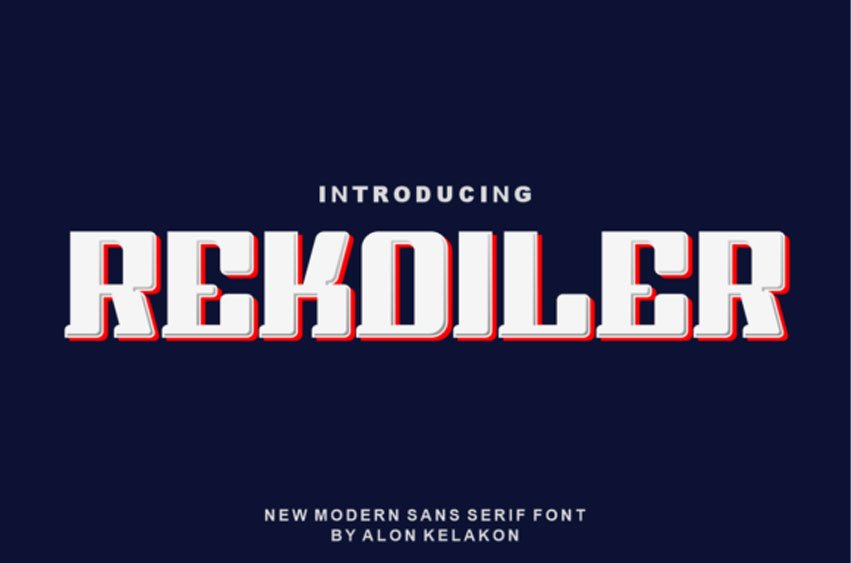
Rekoiler Font is a bold and cool display font.
Whatever the topic, this font will be a wonderful asset to your font library, as it has the potential to enhance any creation.